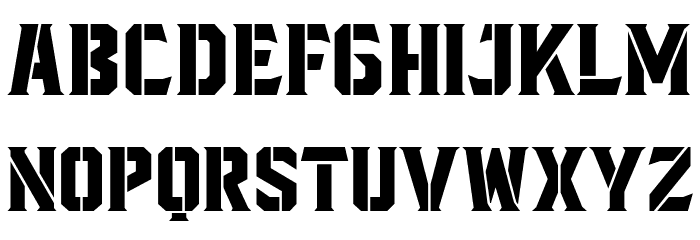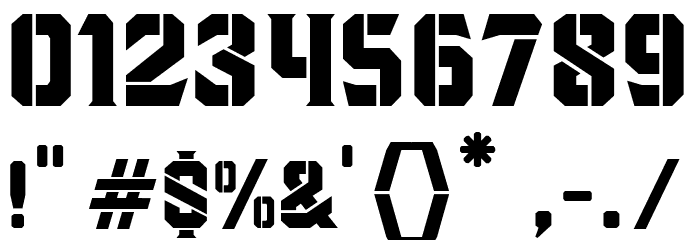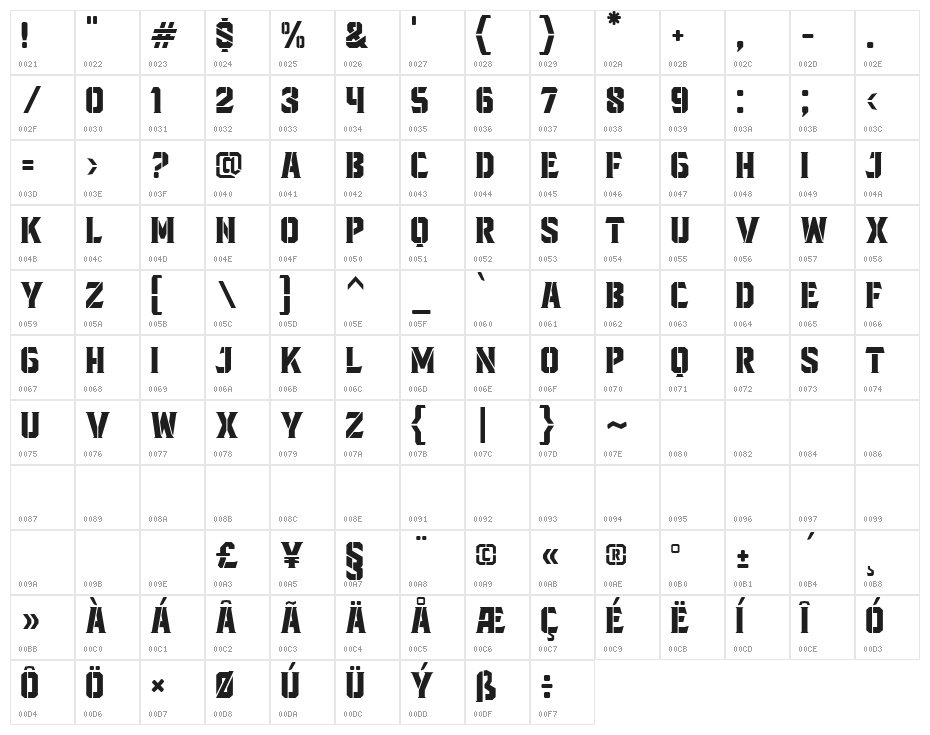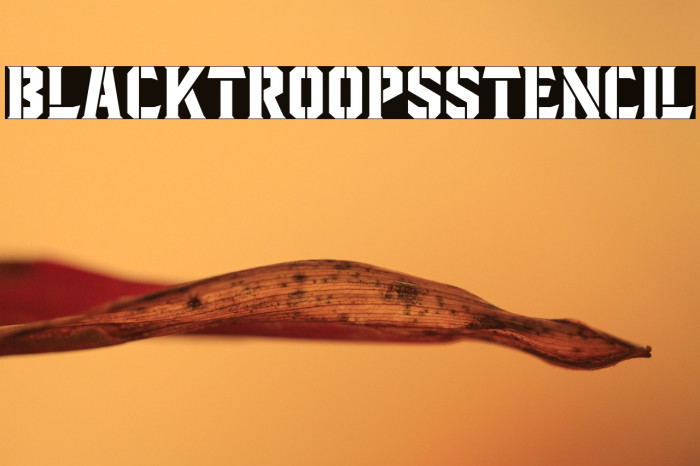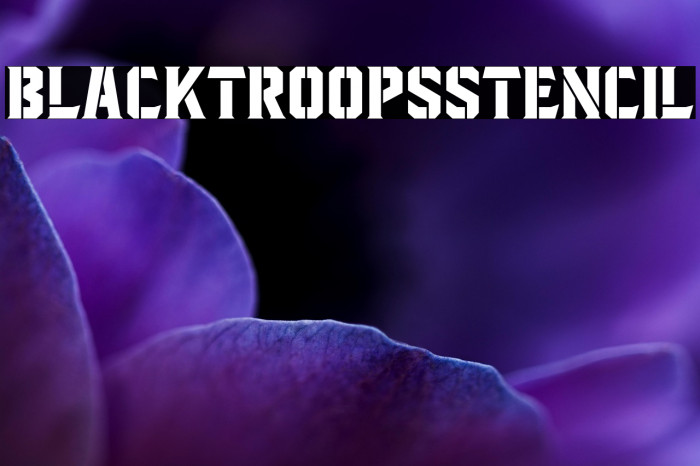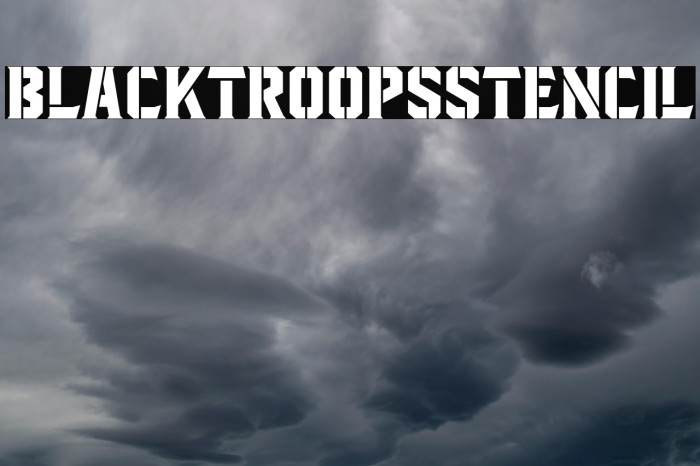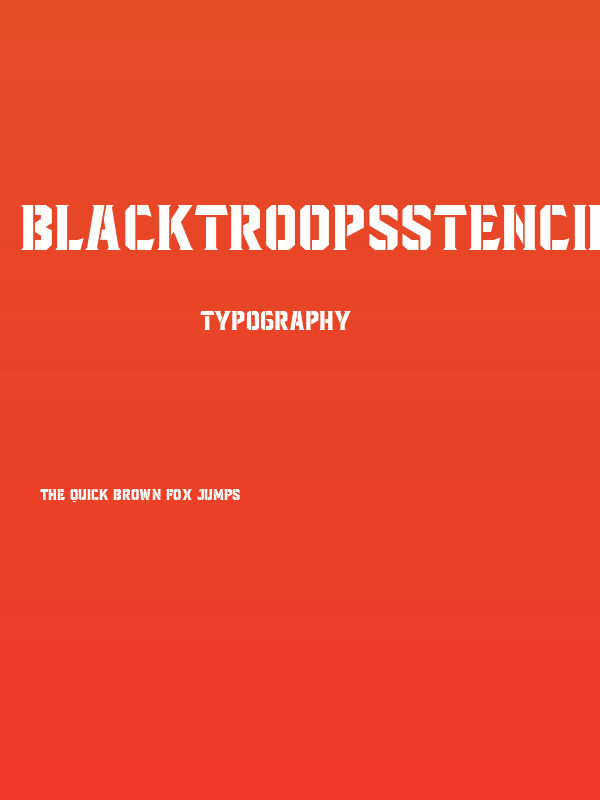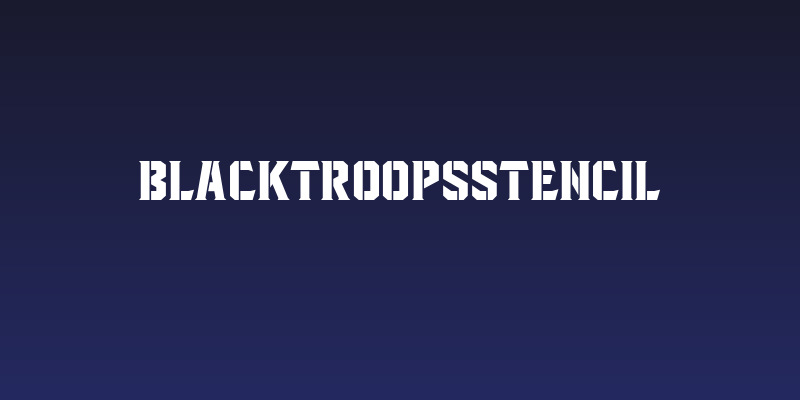
BlacktroopsStencil Font
This font features a bold, stencil-like design with strong geometric shapes and sharp angles. The characters are uniformly wide, giving it a robust and impactful appearance. The cut-out sections within each letter enhance its stencil aesthetic, making it ideal for designs that require a military or industrial feel. The uppercase letters are particularly striking, with consistent height and width, while the numbers and special characters maintain the same bold style, ensuring coherence across all text elements.
A bold, geometric stencil font with a military-industrial aesthetic.
- Proposed Projects: Ideal for military-themed designs, industrial branding, posters, and signage that require a strong, impactful look.
- Overall Style: Industrial, Military